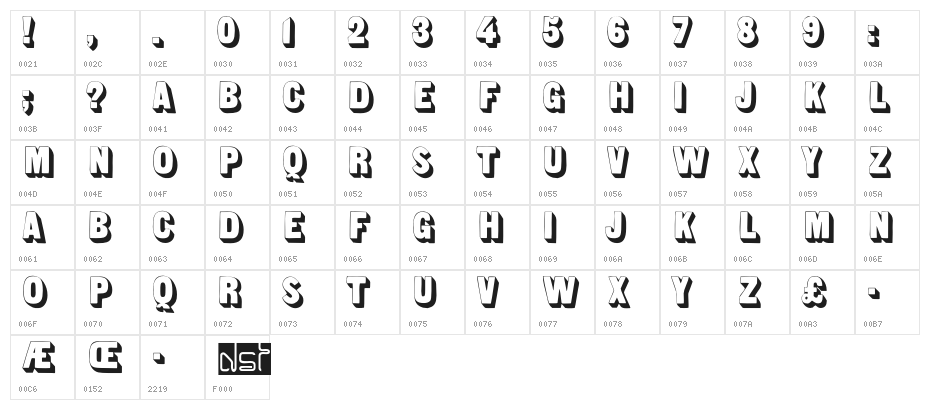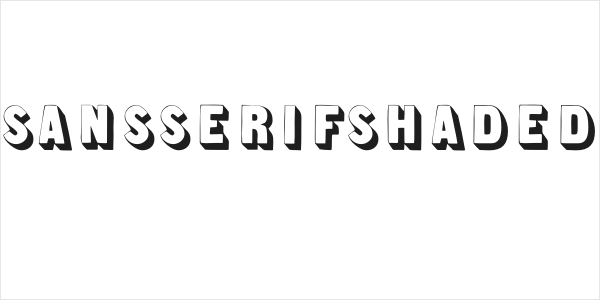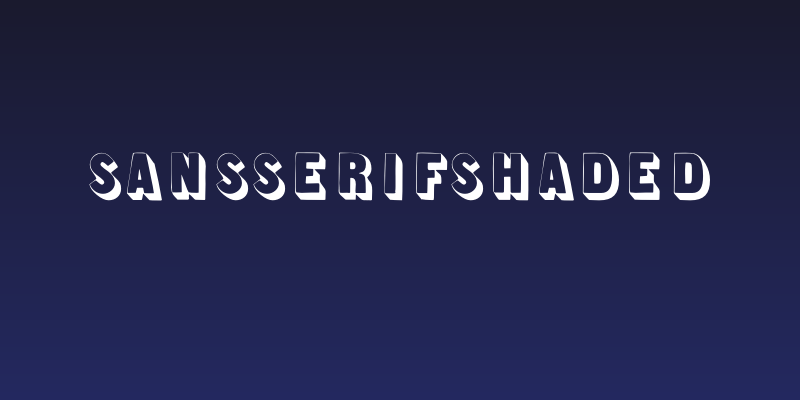
SansSerifShaded Font
SansSerifShaded Description
This font features a bold, sans-serif style with a distinctive 3D shaded effect that gives each character a sense of depth and dimension. The letters are uniformly wide, with clean, straight lines and a modern aesthetic. The shading is consistent across all characters, providing a cohesive look that enhances readability while adding a playful, eye-catching element. This font is ideal for creating impactful headlines or logos that require a strong visual presence. The numbers and special characters maintain the same stylistic features, ensuring uniformity throughout any text.
| Proposed Projects | Ideal for posters, logos, headlines, and any design requiring a bold, modern touch. |